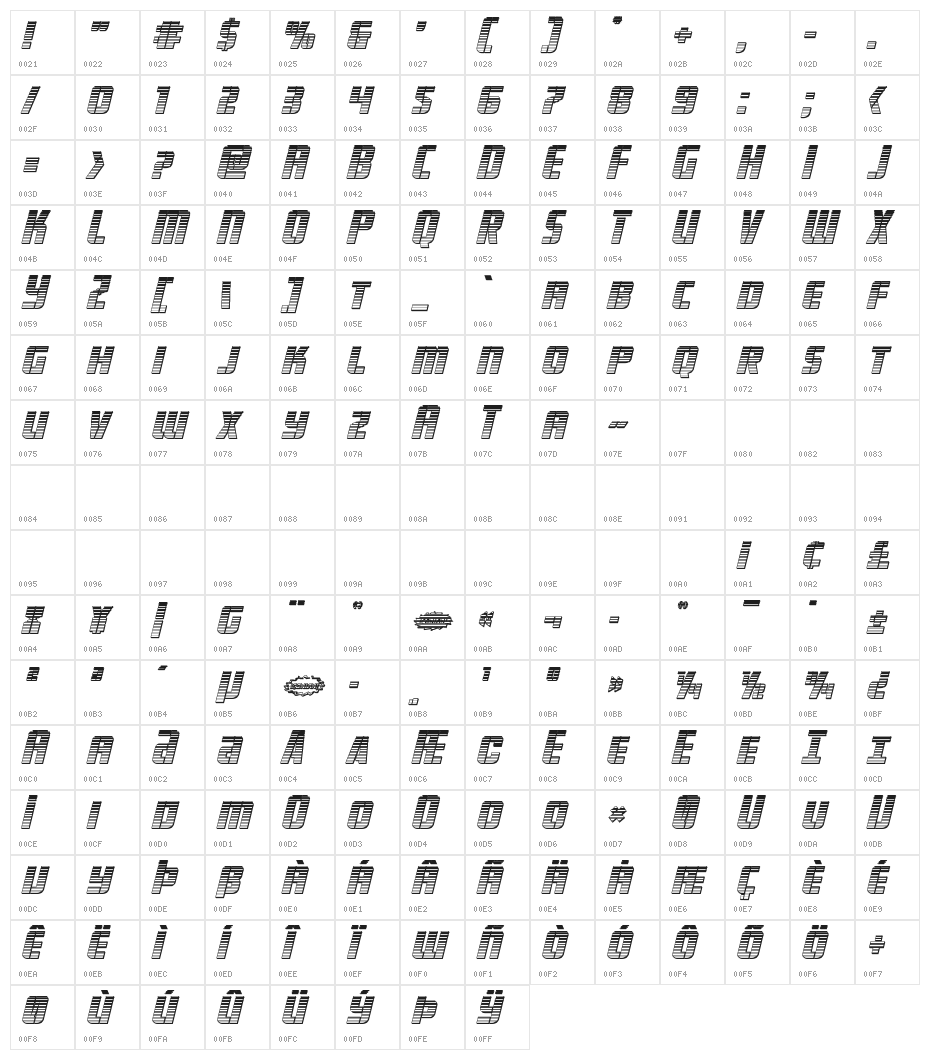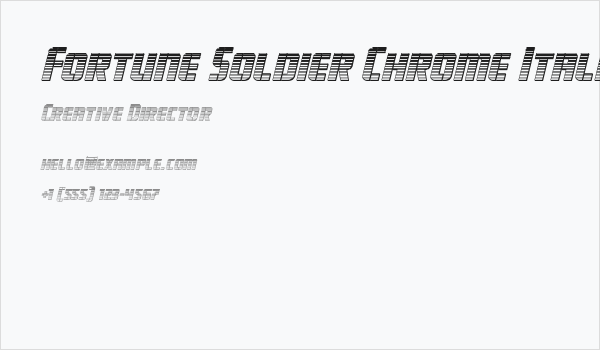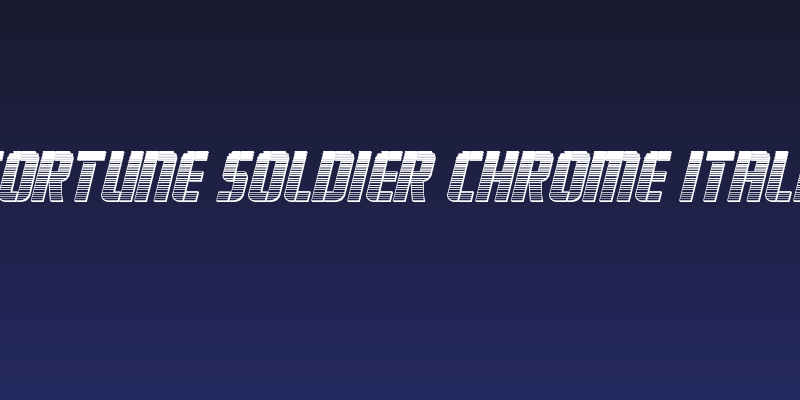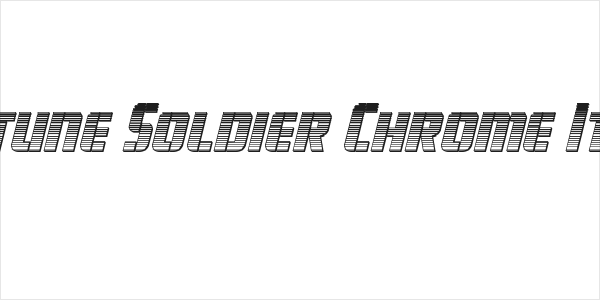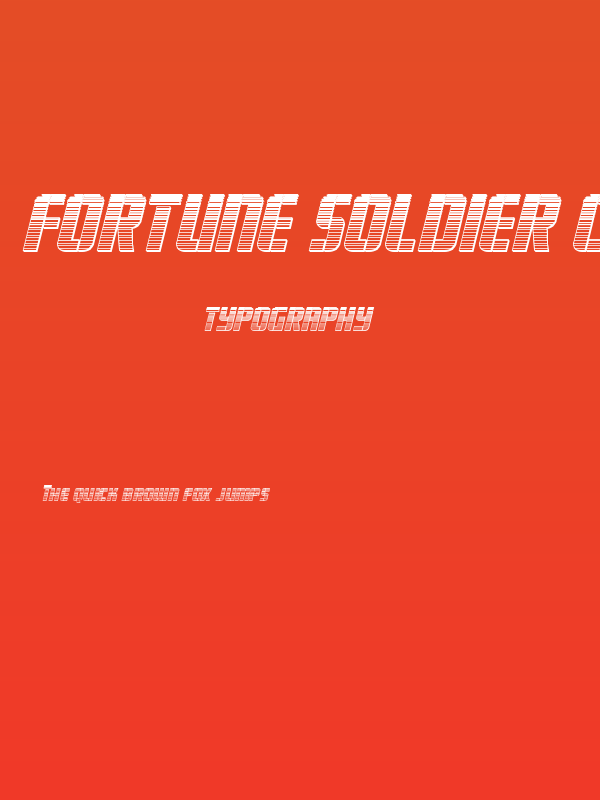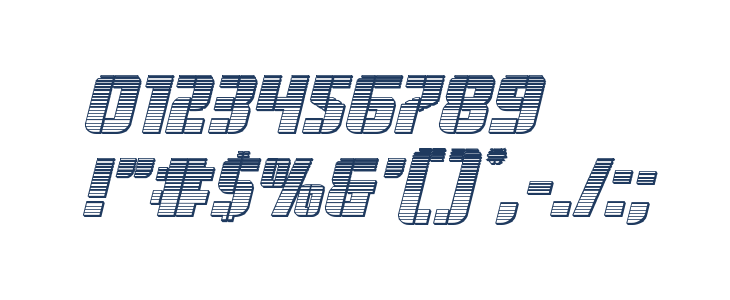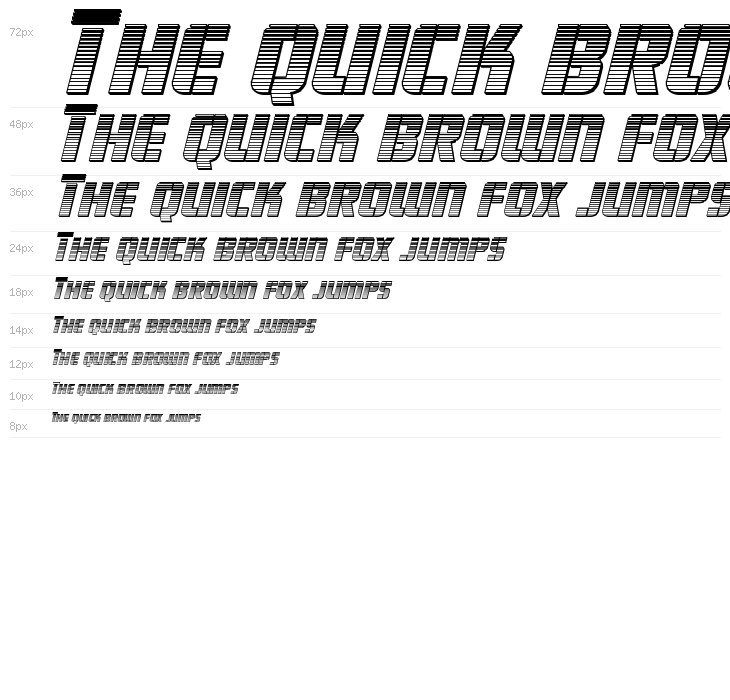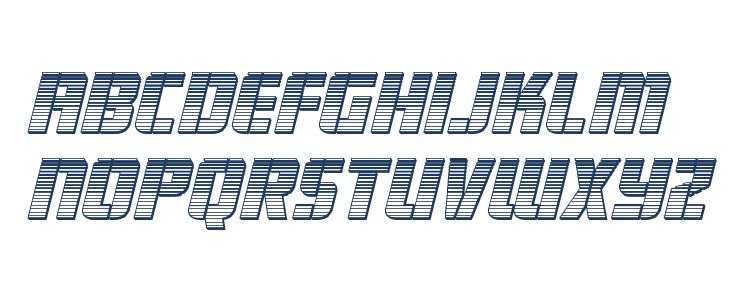
Fortune Soldier Chrome Italic Font
Fortune Soldier Chrome Italic Description
This font features a bold, italicized style with a distinct chrome-like appearance. Each character is designed with horizontal lines that create a sense of depth and movement, reminiscent of a futuristic or industrial aesthetic. The uppercase and lowercase letters maintain a consistent width, while the numerals and special characters follow the same design principles, ensuring uniformity across all elements. The font's unique style makes it stand out, offering a dynamic and eye-catching look that is both modern and edgy.
| Proposed Projects | Ideal for projects requiring a modern, industrial look such as tech branding, video game titles, or futuristic posters. |